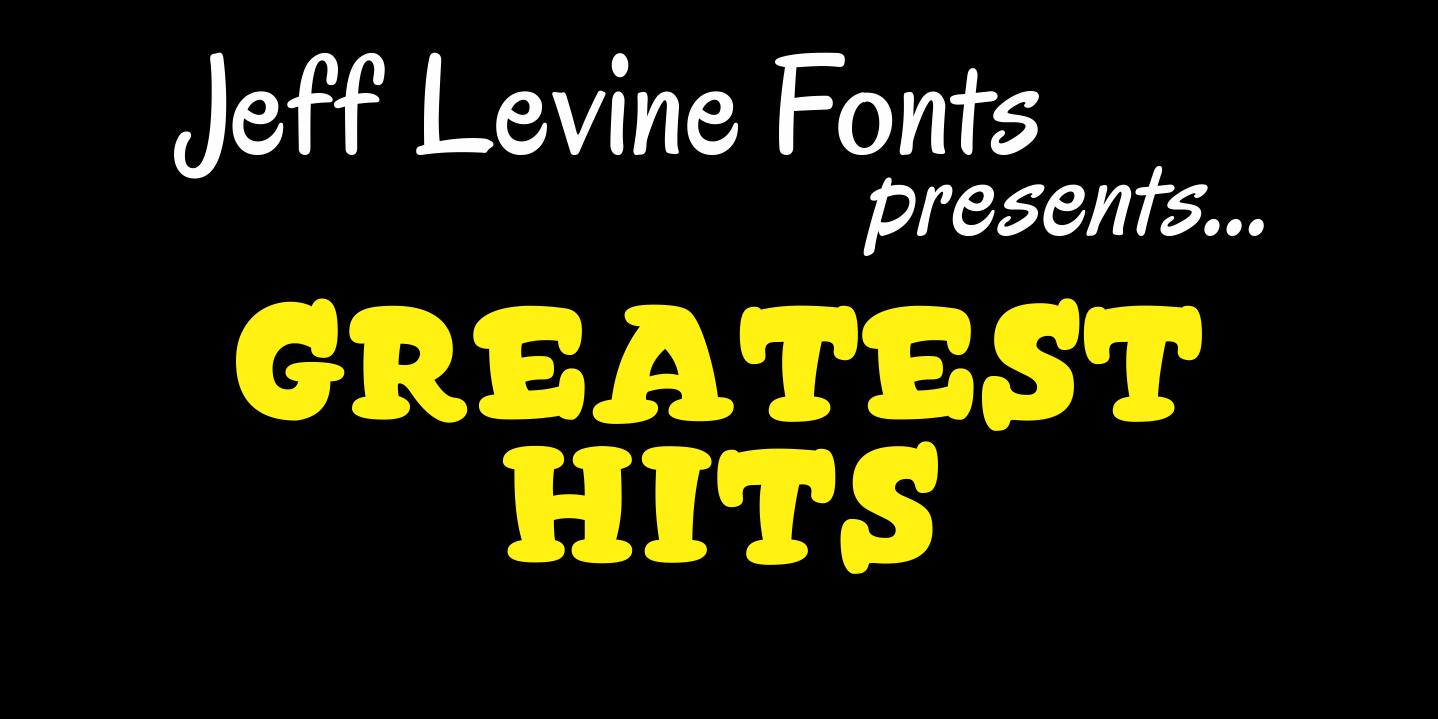
Greatest Hits
Greatest Hits JNL is Jeff Levine's serif version of his 50s style font, Doowop JNL... complete with the same fun look and "good-time-rock-and-roll" feeling as the original!
Greatest Hits JNL Regular by Jeff Levine Fonts